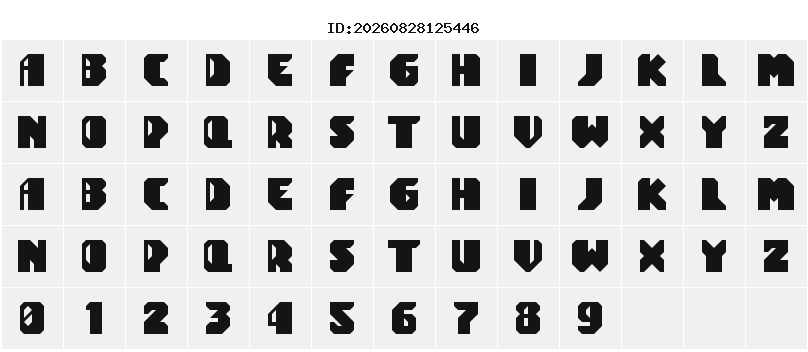
Tomatron Preview
• Font Name: Tomatron
• Designer: Tommiokoman
• Description: ‚ÄúTomatron‚Äù was built with FontStruct
About Tomatron.ttf
Tomatron.ttf is a modern, elegant sans-serif font designed for ultimate readability and visual harmony. Perfect for branding, headlines, web design, and print materials.